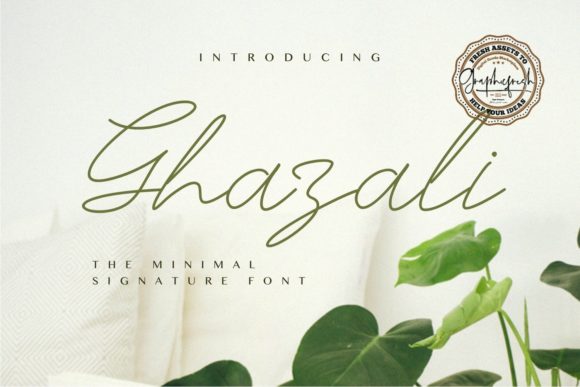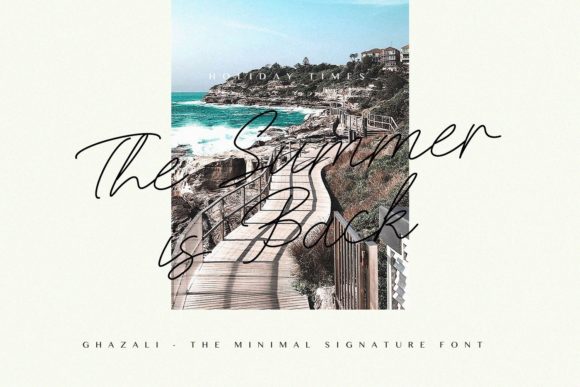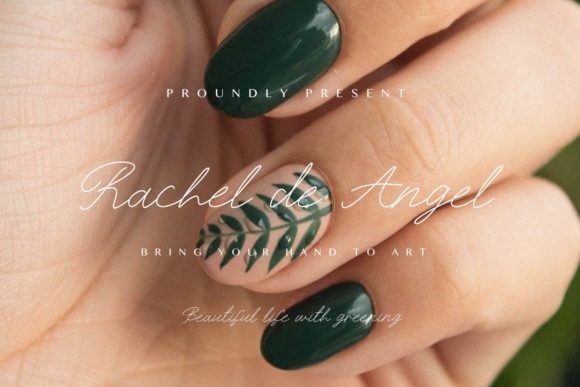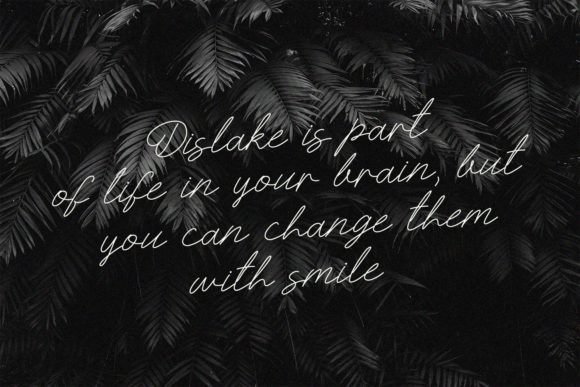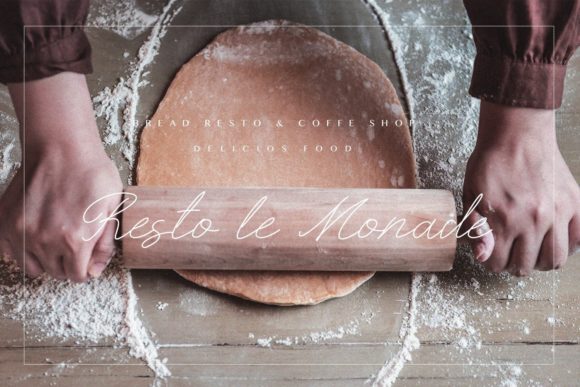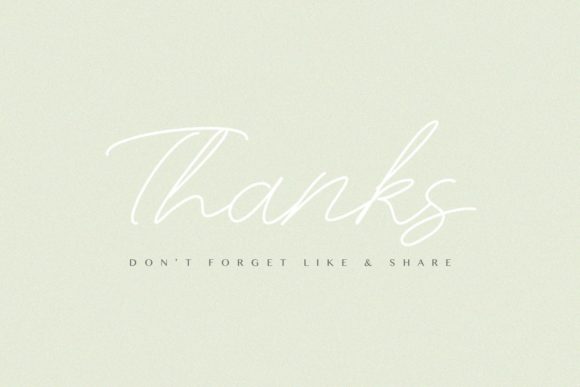
HomeScript FontsGhazali Font Script Fonts Ghazali Font FacebookXPinterestWhatsApp Ghazali Font Poster 2 Ghazali Font Poster 3 Ghazali Font Poster 4 Ghazali Font Poster 5 Ghazali Font Poster 6 About Ghazali Font Ghazali is a sophisticated script font. Get inspired by its contemporary and elegant style! DOWNLOAD ON CREATIVE FABRICAThis font is sold and delivered by Creative Fabrica. Font Canyon may earn a commission if you buy through this link. People also explored Lighthouse Font Reading Signature Font Fastrun Font Americans Classy Font Jello Font Sioner Font Virgiluna Font Gontela Font Salsabila Font 382 0 TagsGhazali Font Previous articleMaharani FontNext articleMalligoe Font LEAVE A REPLY Cancel reply Comment: Please enter your comment! Name:* Please enter your name here Email:* You have entered an incorrect email address! Please enter your email address here Website: Save my name, email, and website in this browser for the next time I comment. Personal Use Free Amrina Personal Use Free Read more about this font Nulshock Bold Personal Use Free Read more about this font Wordan Personal Use Free Read more about this font The Sweet Neo Personal Use Free Read more about this font BLOG Modern Sans-Serif Fonts That Brands Love in 2025 In 2025, modern sans-serif fonts remain a top choice for brands looking to project clarity, professionalism, and... How to Cut Any Font on Cricut: Convert a Font to SVG (Free) Using Fonts in Digital Marketing: Tips to Strengthen Your Brand Identity Exploring Font Trends